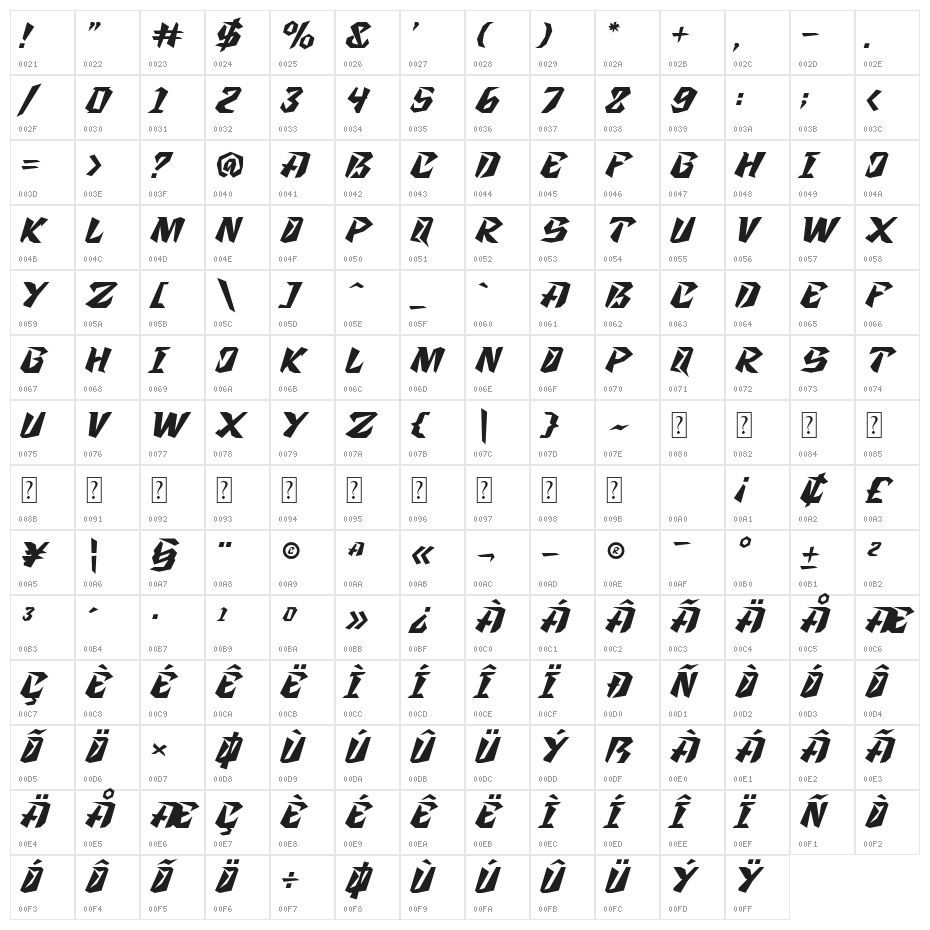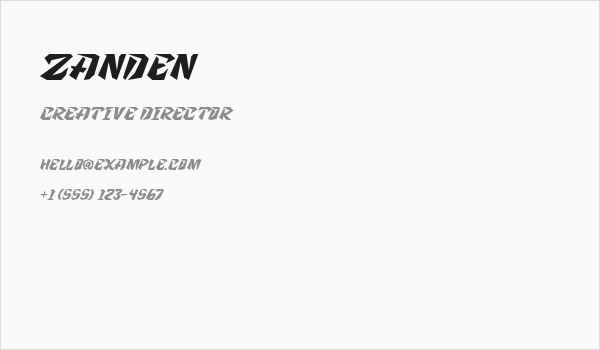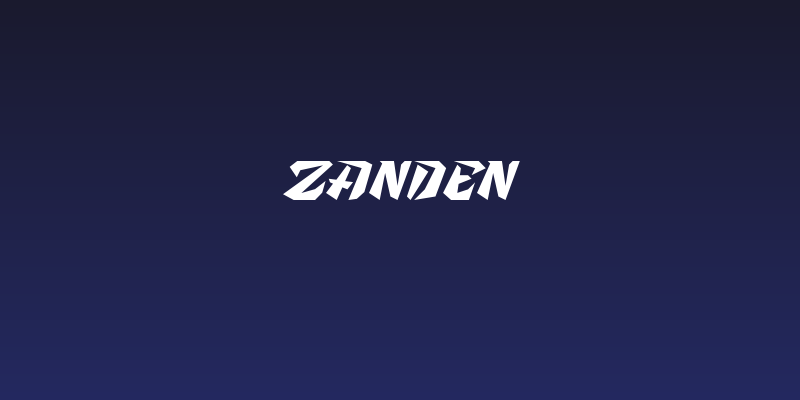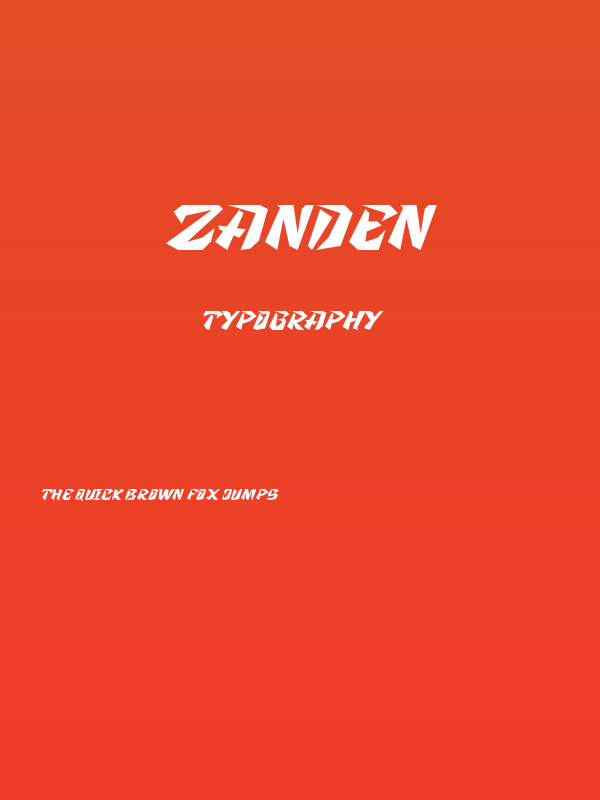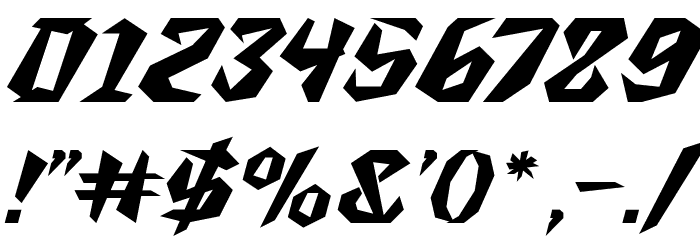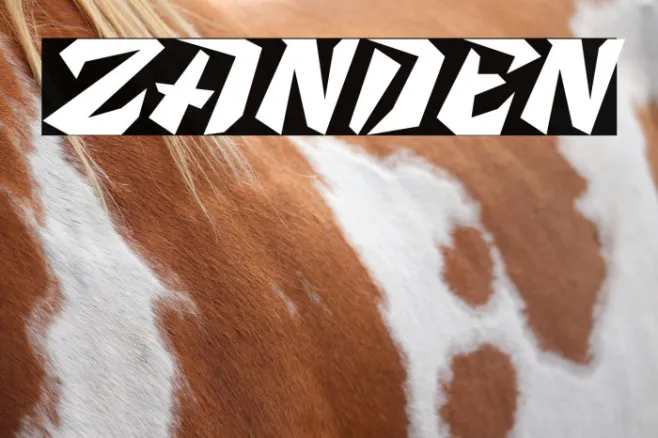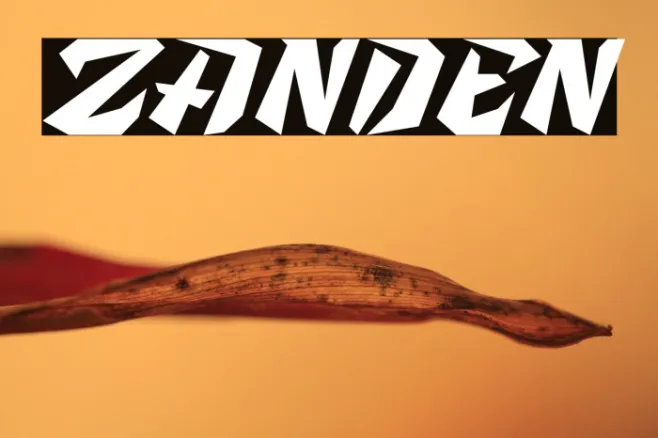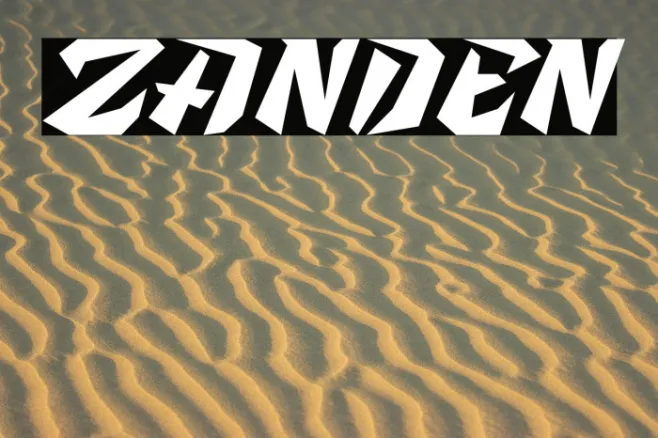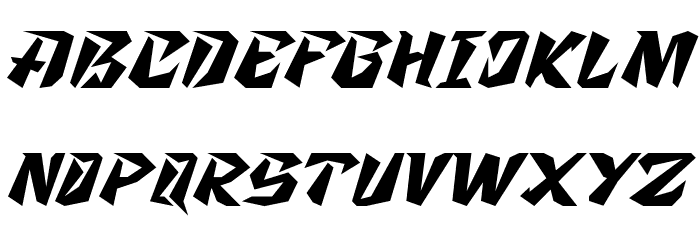
Zanden Font
Zanden Description
This font features a bold and dynamic design with sharp, angular edges that create a sense of movement and energy. The characters are heavily stylized, with a geometric flair that gives them a futuristic and edgy appearance. The uppercase and lowercase letters maintain a consistent style, with each character exhibiting unique cuts and angles that add to the overall aesthetic. The numbers and special characters follow the same design principles, ensuring a cohesive look across all elements. This font is ideal for projects that require a strong visual impact and a modern, unconventional style.
| Proposed Projects | Ideal for branding, posters, album covers, and any project needing a modern, impactful look. |